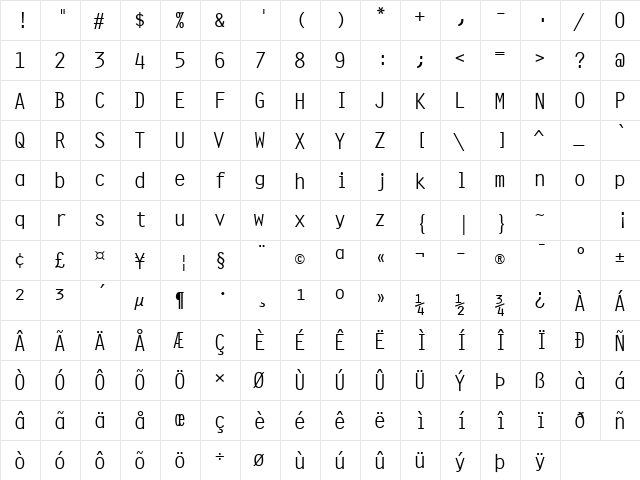
Orator Regular
Design Context for Orator Typeface
Orator offers clean, dependable letterforms without strong stylistic allegiance, making it a practical choice for designers who need flexibility.